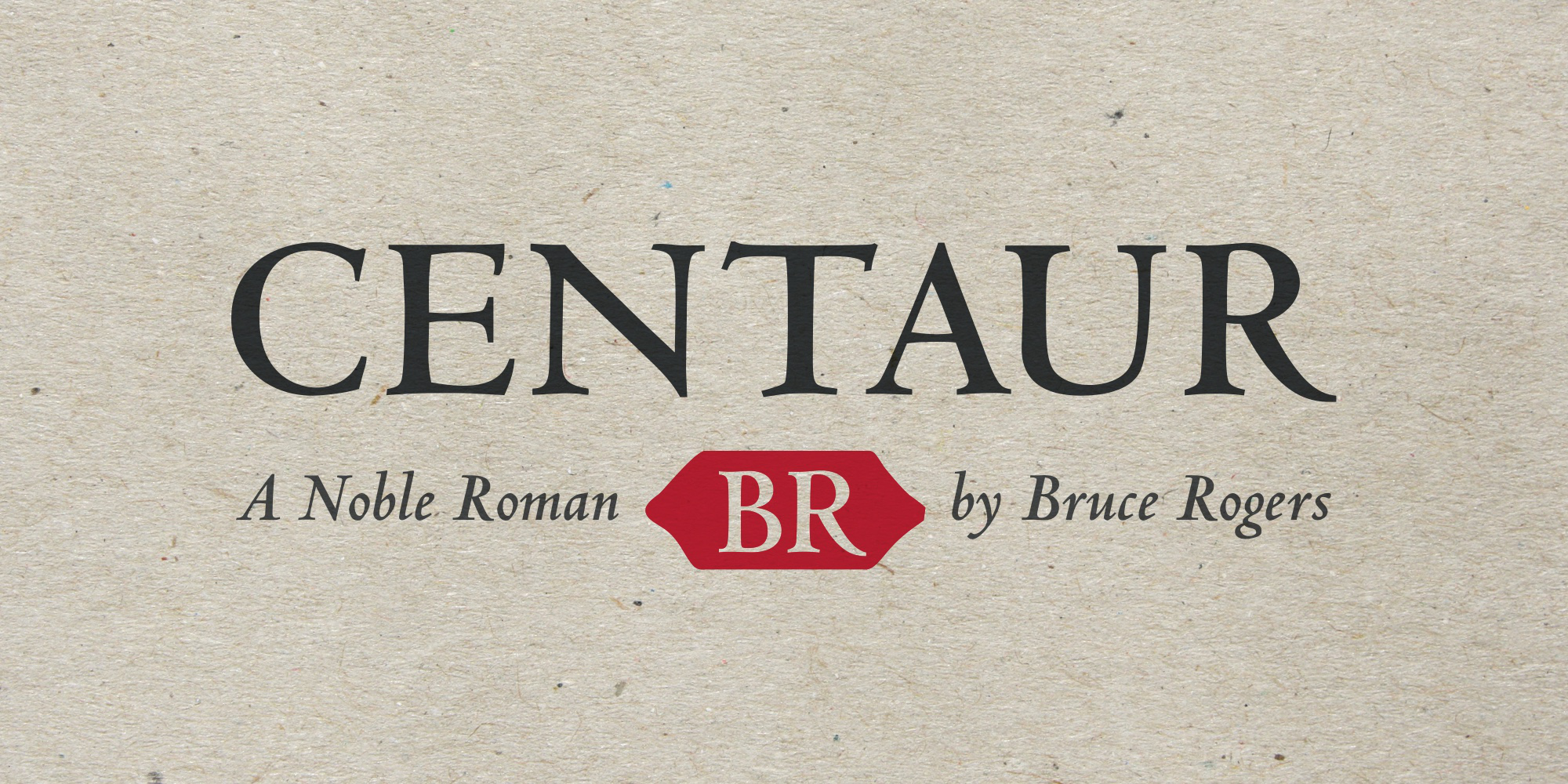
The Centaur Font is an exquisitely classical and highly revered serif typeface, designed by Bruce Rogers in 1914, drawing inspiration from the humanist types of Nicolas Jenson from the late 15th century. It is celebrated for its graceful proportions, beautiful curves, and a timeless elegance that evokes the golden age of printing. Imagine its refined characters gracing the pages of fine art books, adding an air of intellectual prestige to university publications, or providing the sophisticated backbone for museum exhibits and classical music programs. Its open, warm forms and exceptional readability make it an ideal choice for high-quality book design, prestigious invitations, literary journals, and any content where clarity, aesthetic beauty, and a profound sense of tradition are paramount. Centaur Font delivers with its unwavering quality, ensuring your message is conveyed with supreme legibility and a classic, distinguished aesthetic that stands the test of time.
What makes Centaur Font so exciting is its masterful recreation of humanist ideals in typography, adapted for modern use. Rogers meticulously studied Jenson's original Roman types, aiming to capture their inherent beauty and balance while optimizing them for contemporary printing processes. This font embodies a deep respect for typographic history, offering designers the ability to infuse their projects with a profound sense of heritage, intellectual rigor, and sophisticated craftsmanship. It’s more than just a typeface; it’s a living piece of art, providing a foundation of understated beauty and timeless elegance that makes reading a genuine pleasure. Designers consistently praise its meticulous detailing, making it a reliable and powerful choice for discerning typographic projects where tradition and refined aesthetics are paramount.
The Centaur Font family is typically structured to offer a range of styles that enhance its classical elegance and versatility. Beyond the foundational Centaur Regular, the family often includes the renowned Centaur Italic (based on the work of Francesco Griffo, creating a harmonious pairing with the Roman). While not as extensive in weights as some modern typefaces, classic versions might include a Centaur Bold for emphasis, though its core strength lies in its exquisite regular weight for text. Professional versions often come with an extensive character set, ligatures, small caps, and various numeral styles (e.g., old-style figures, lining figures), providing immense flexibility for sophisticated typesetting and fine book design. These diverse family members ensure that designers can create intricate and harmonious typographic systems, maintaining a consistent and elegant aesthetic from detailed body text to refined headlines.